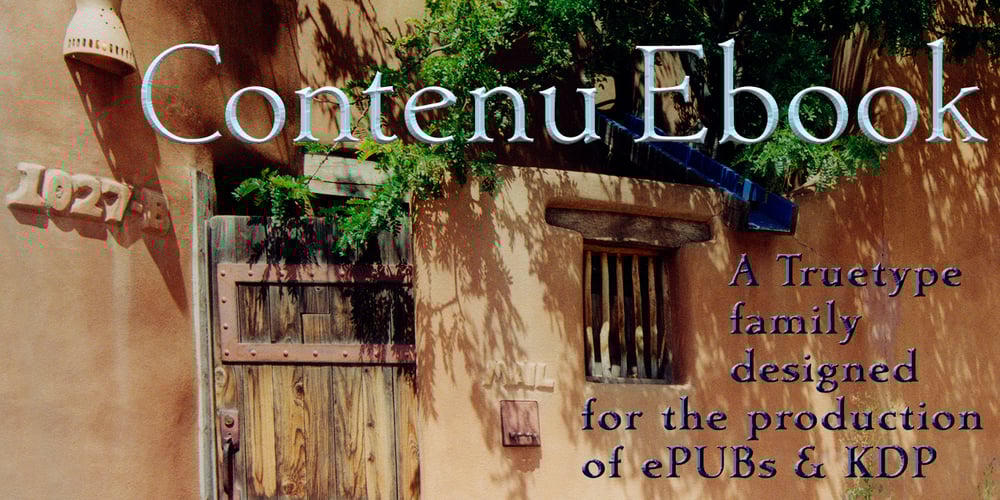
Contenu EBook
Contenu EBook font
Contenu EBook Font Family was designed by David Bergsland and published by Hackberry Font Foundry. Contenu EBook contains 4 styles and family package options. Because ebooks will not normally accept .otf fonts, and they don’t support Opentype features, this font family was designed to be used for the ebook conversions of print books. It uses old style figures. The italics are slanted a bit more. And Heavy is a little bolder than the bold in Contenu Book.